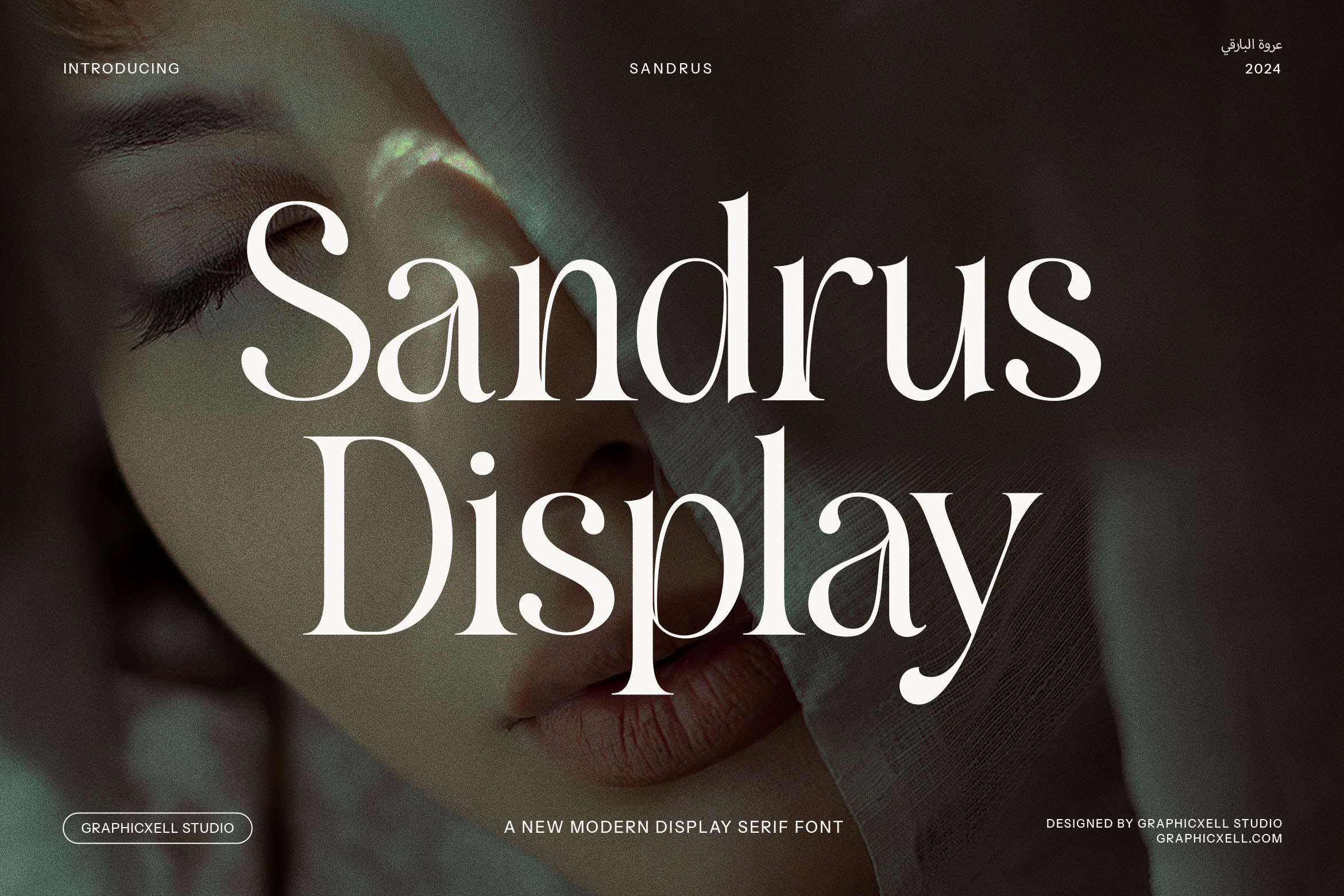
Sandrus Elegant Display Serif Font
Sandrus Elegant Display Serif Font – Where Modern Elegance Meets Vintage Charm
Introducing Sandrus Elegant Display Serif Font, a beautifully crafted typeface that blends modern sophistication with vintage-inspired flair. Designed for creators who appreciate timeless beauty and refined style, Sandrus offers a unique and versatile look that works seamlessly across a wide range of design projects.
With its graceful serifs, elegant curves, and balanced proportions, Sandrus makes an immediate impression. This font is perfect for logo design, branding, and high-end product packaging, offering a sophisticated yet approachable feel. Whether you're designing for luxury boutiques, exclusive events, or premium food brands, Sandrus adds a touch of class that ensures your brand stands out with elegance.
The versatility of Sandrus extends beyond just branding and logos—it shines in magazine layouts, advertisements, and website typography, where it brings both beauty and readability to digital and print platforms. Its timeless design, with subtle vintage influences, makes it ideal for projects requiring a blend of retro sophistication and modern appeal.
Whether you're working on fashion, lifestyle, or luxury product designs, Sandrus Elegant Display Serif Font delivers a refined, high-end aesthetic that elevates any project. Perfect for magazines, advertising campaigns, and boutiques, this font ensures your designs have a distinctive, lasting impact.
Make your next project unforgettable with Sandrus—the ideal font for brands that want to make a bold statement with elegance and style.